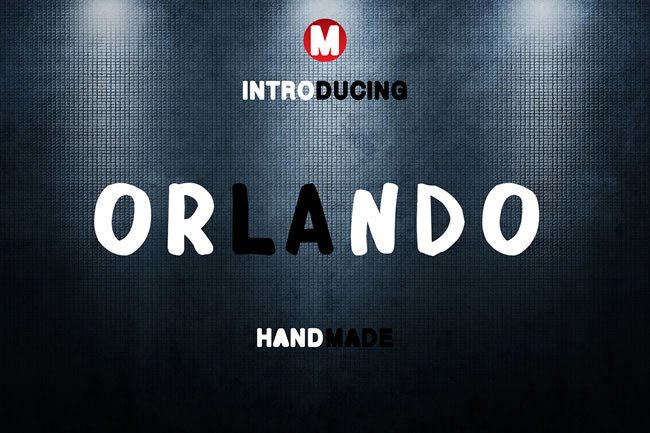
Step into a world of sophistication and style with 'Orlando Font', the striking sans serif typeface that exudes modernity and elegance. Crafted with utmost care by Only The Originals, this font family is a true masterpiece that will elevate your creative projects to new heights. With its crisp and clean lines, Orlando Font effortlessly adds a touch of refinement to any design, making it the perfect choice for those who demand excellence.
Unleash your creativity and let Orlando Font work its magic on your invitations, greeting cards, branding materials, business cards, quotes, and posters. Its versatility knows no bounds, allowing you to create designs that resonate with your audience and leave a lasting impression. Whether you're a seasoned designer or just starting out, Orlando Font will empower you to produce stunning visuals that command attention.
Immerse yourself in the endless possibilities of Orlando Font. Its sleek and contemporary design will add an air of sophistication to your wedding invitations, making your special day even more memorable. Craft heartfelt greeting cards that convey your genuine emotions with a touch of elegance. Develop a captivating brand identity that reflects your company's values and vision. Create business cards that leave a lasting impression on potential clients, showcasing your professionalism and attention to detail.
With Orlando Font, your words will come alive, carrying a sense of purpose and impact. Design thought-provoking quotes that inspire and motivate your audience. Create posters that capture the essence of your message, delivering a powerful visual impact. Let Orlando Font be your creative companion, guiding you towards design excellence and leaving an indelible mark on your audience.